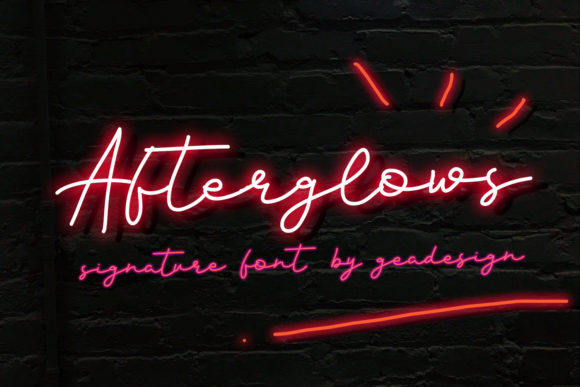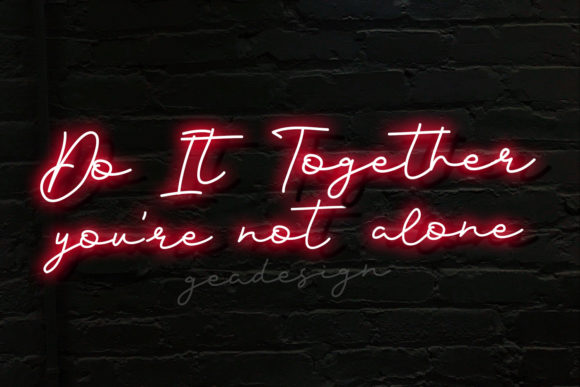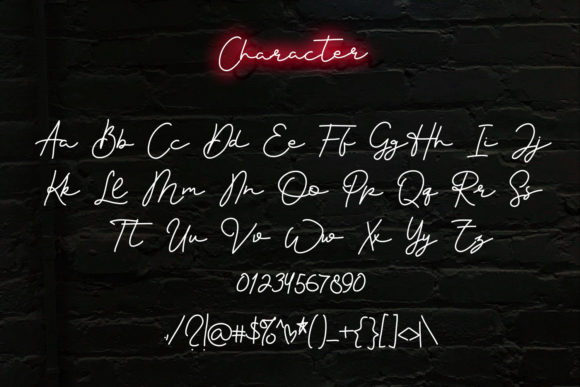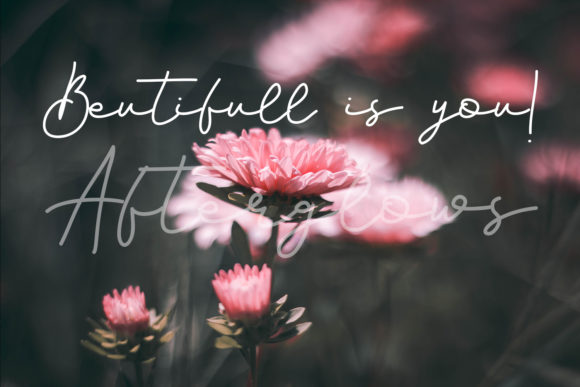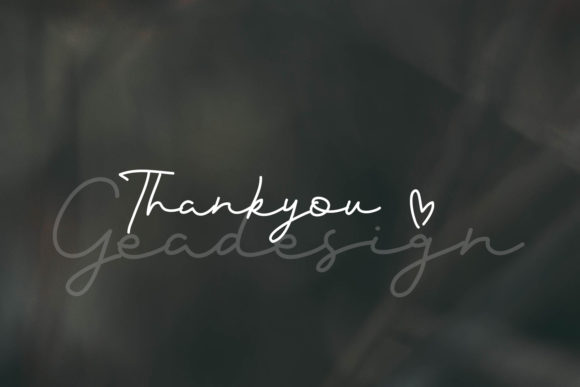
HomeScript FontsAfterglows Font Script Fonts Afterglows Font FacebookXPinterestWhatsApp Afterglows Font Poster 2 Afterglows Font Poster 3 Afterglows Font Poster 4 Afterglows Font Poster 5 About Afterglows Font Afterglows is a signature font with a casual feel. It will add a dreamy touch to any crafts project! DOWNLOAD NOW People also explored Kalamaya Font Nonot Font Cinnamon Cookie Font Livingston Font Pavia Font Ayana Land Font Ribaques Font Tricky Font Daywala Font 338 0 TagsAfterglows Font Previous articleChaotic Chloe FontNext articleBornena Font LEAVE A REPLY Cancel reply Comment: Please enter your comment! Name:* Please enter your name here Email:* You have entered an incorrect email address! Please enter your email address here Website: Save my name, email, and website in this browser for the next time I comment. Personal Use Free Retro Free Personal Use Free Read more about this font Senza Bella Personal Use Free Read more about this font Concre Personal Use Free Read more about this font Zroest Personal Use Free Read more about this font BLOG Modern Sans-Serif Fonts That Brands Love in 2025 In 2025, modern sans-serif fonts remain a top choice for brands looking to project clarity, professionalism, and... Where to Buy American Fonts Online in 2024 The 10 Best Handwriting Fonts to Add Personality to Your Designs Exploring Font Trends